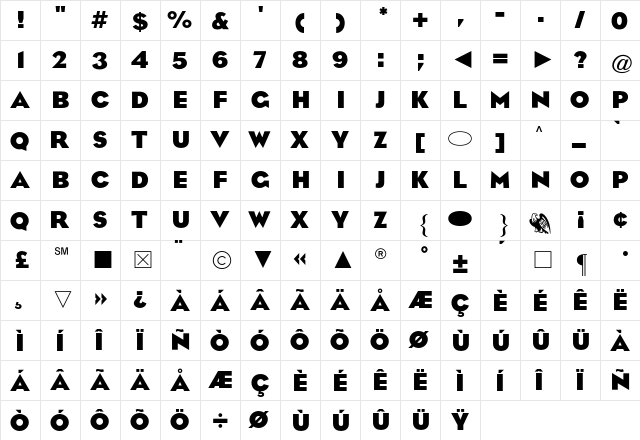
Cg Eagle Bold Regular Font Preview
Cg Eagle Bold Regular
Cg Eagle Bold Regular Font Details
| Foundry | Miles Inc |
Design Context for Cg Eagle Bold Typeface
Cg Eagle Bold takes a measured approach to typography — its balanced proportions and neutral character make it a reliable workhorse for both digital and print work. The heavy weight commands attention and anchors typographic hierarchies.